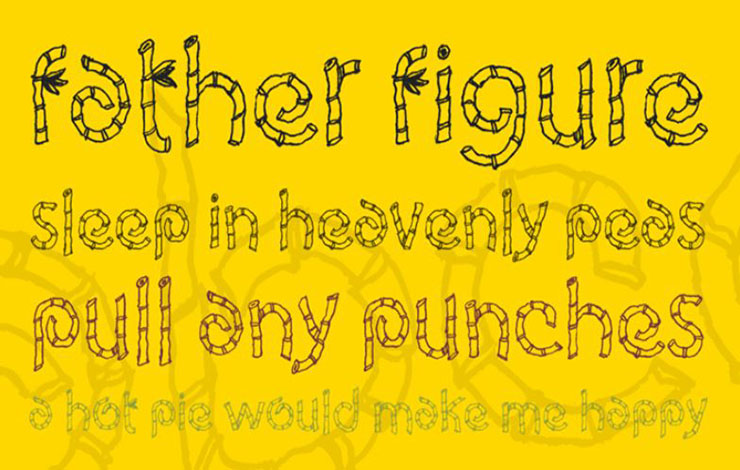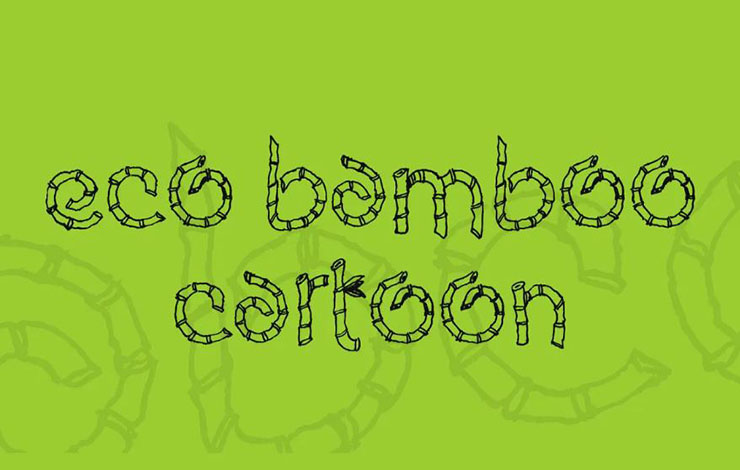
Eco Bamboo Cartoon Font is a whimsical and playful decorative typeface created by Galdino Otten. It is a fun and unique font that features hand-drawn bamboo shoots and leaves, giving it an eco-friendly and natural look.
The font is perfect for use in children’s books, comics, or any design project that requires a playful and lighthearted feel. Its cartoonish design and organic elements make it a popular choice for environmental and nature-themed projects as well.
One of the standout features of Eco Bamboo Cartoon Font is its extensive character set, which includes a range of special characters and alternate letterforms.
This allows for greater customization and creative possibilities, making it a versatile choice for designers. And it comes in a single style that contains 236 glyphs.
Eco Bamboo Cartoon Font is also highly legible, making it a practical choice for text-heavy designs such as flyers, posters, or websites.
Its unique hand-drawn style and organic elements make it an excellent choice for children’s books, comics, or any project that requires a whimsical touch.